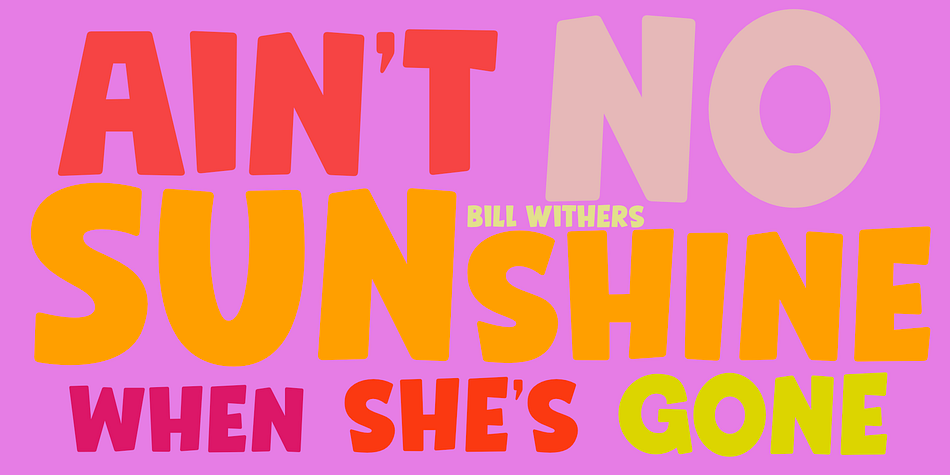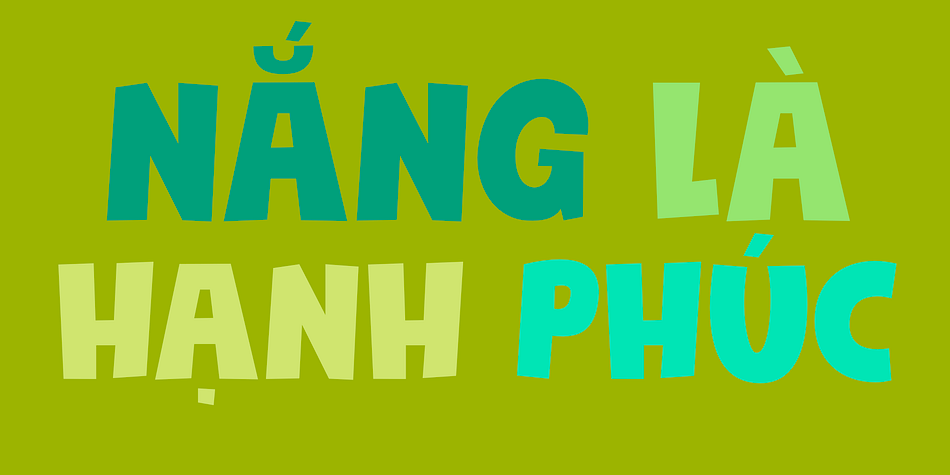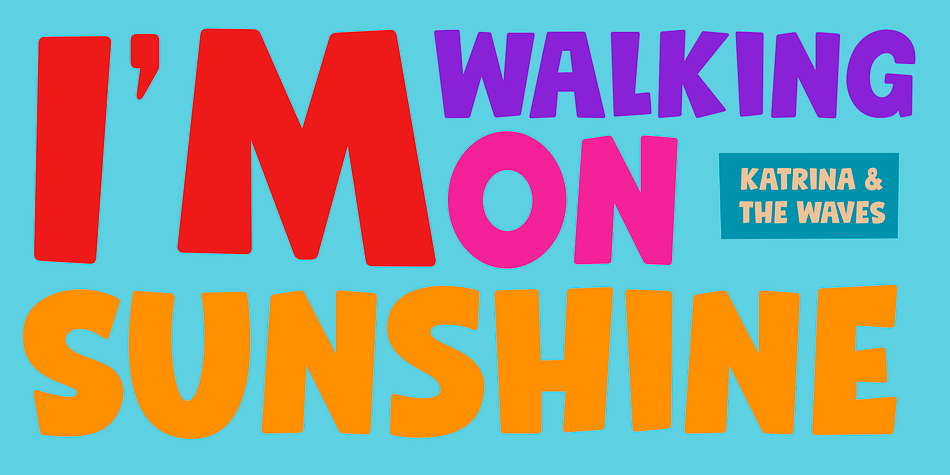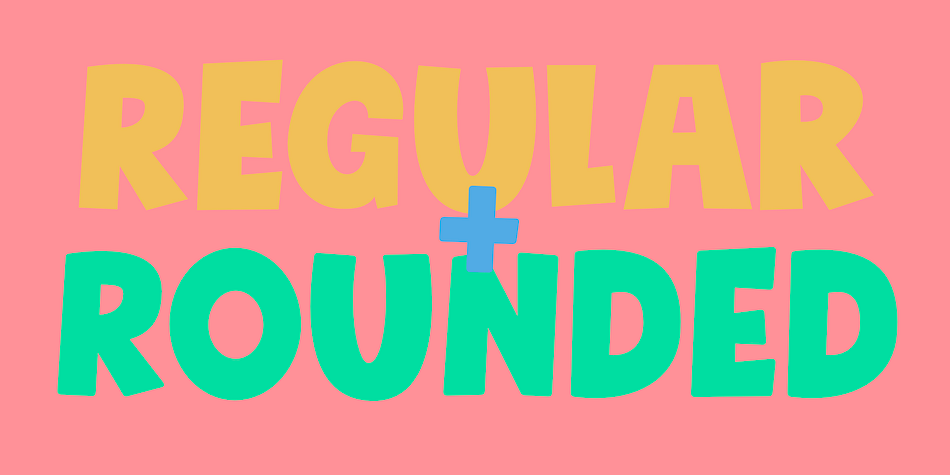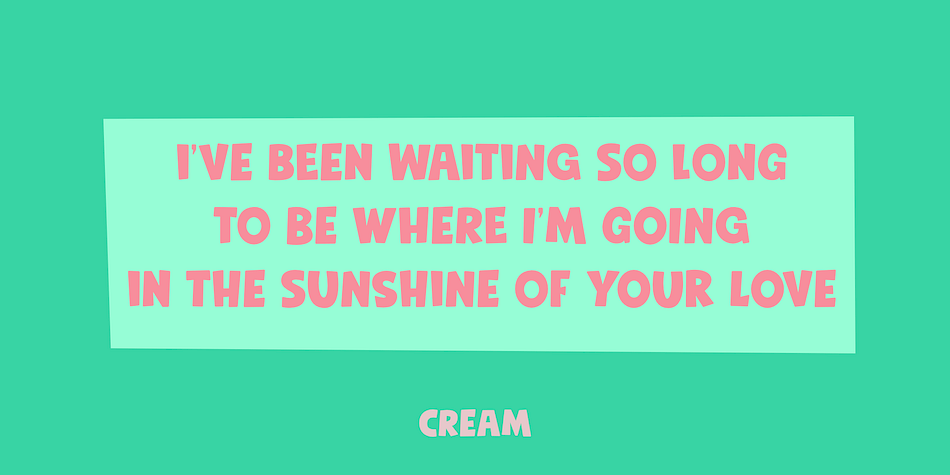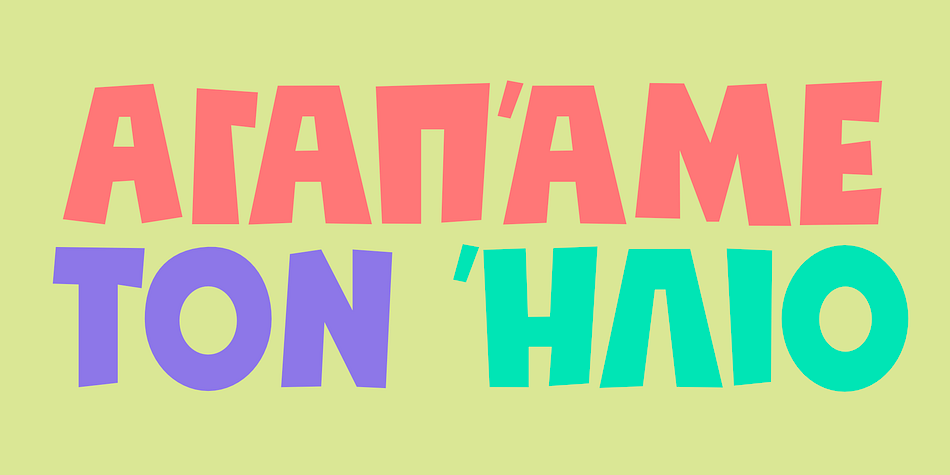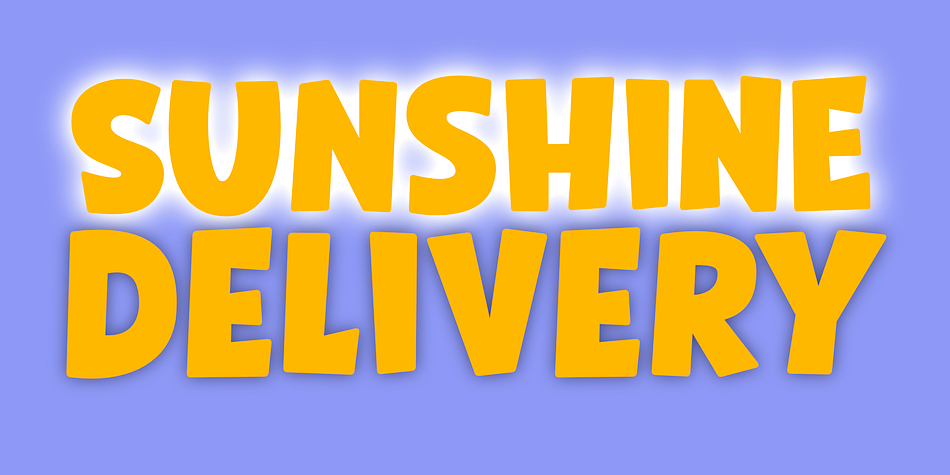
Designed by David Kerkhoff, Sunshine Delivery is a comic and hand display font family. This typeface has four styles and was published by Hanoded.
After a long period of wind, rain and cold, summer has finally arrived. It almost felt as if the sunny weather came as a special delivery!
Sunshine Delivery is a handmade display font. It comes in a regular, angular version and a rounded one. Need Vietnamese support? Check! Want some Sami? Got it! Feel like a bit of Greek? Dive right in!